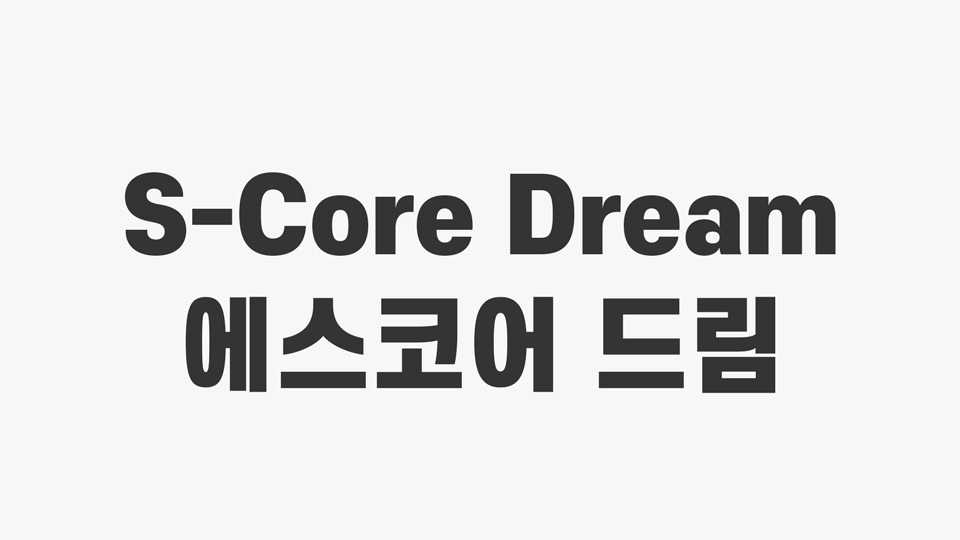
Download S-Core Dream typeface, a versatile sans serif font family in 9 weights. S-Core Dream is a font for titles with a full rectangular structure, with a modern touch in a retro form.
Designer: S-Core